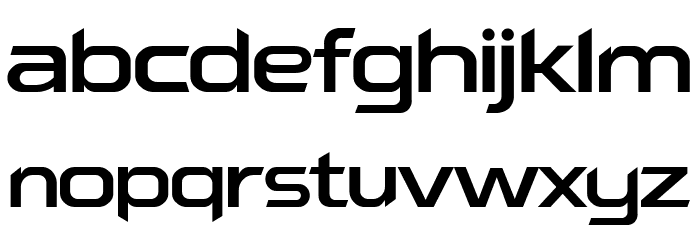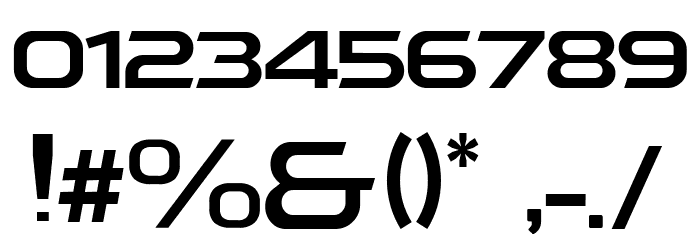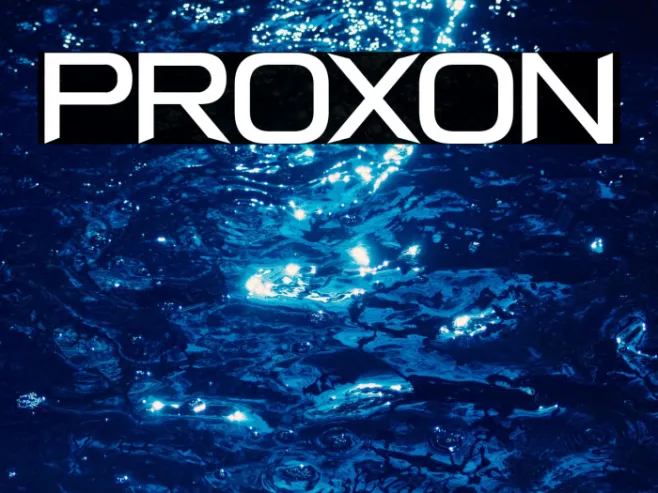
PROXON Font
This font features a modern and futuristic design with sharp, angular edges and a geometric structure. The uppercase letters are bold and commanding, while the lowercase letters maintain a consistent style with slightly softer curves. The numerals are distinct and easy to read, complementing the overall aesthetic. Special characters are designed with the same angular precision, making them stand out. The font's clean lines and contemporary feel make it suitable for a variety of digital and print applications.
A modern, angular font with a futuristic and geometric design.
- Proposed Projects: Ideal for technology branding, sci-fi themed projects, modern advertising, and digital interfaces.
- Use Case: Headlines, Logos, Digital interfaces